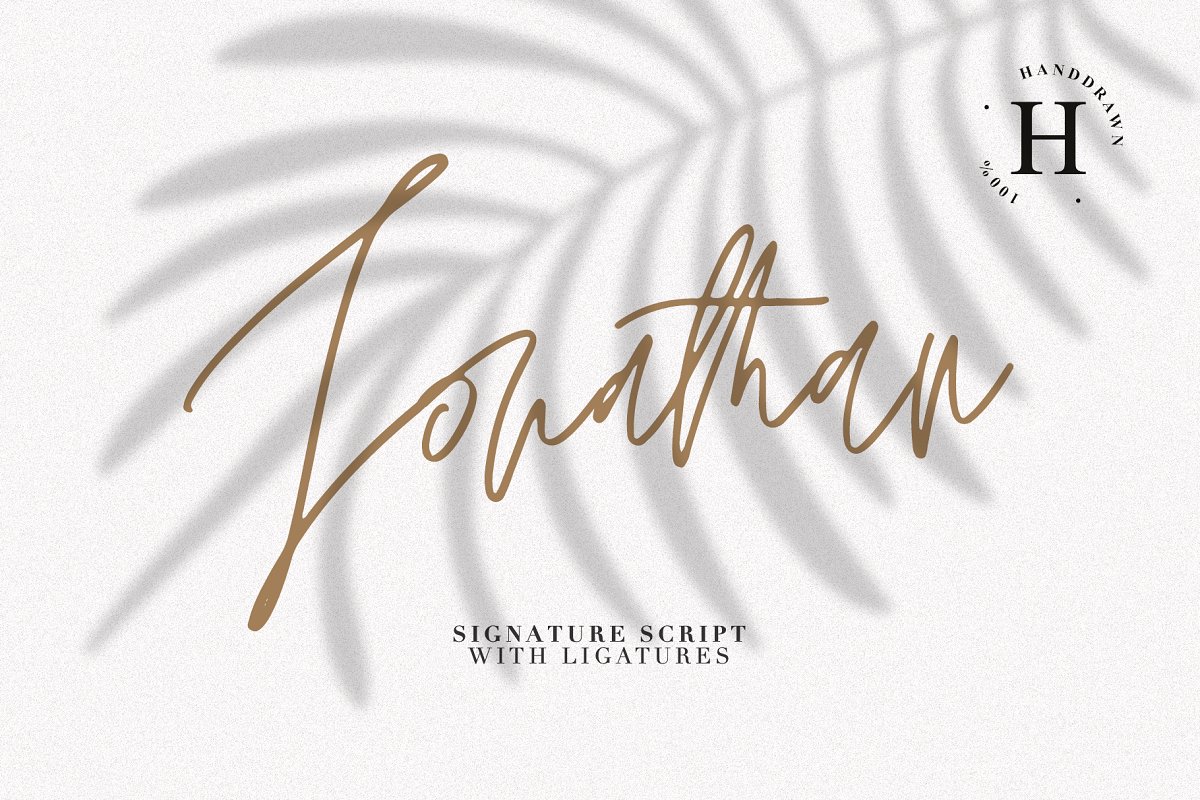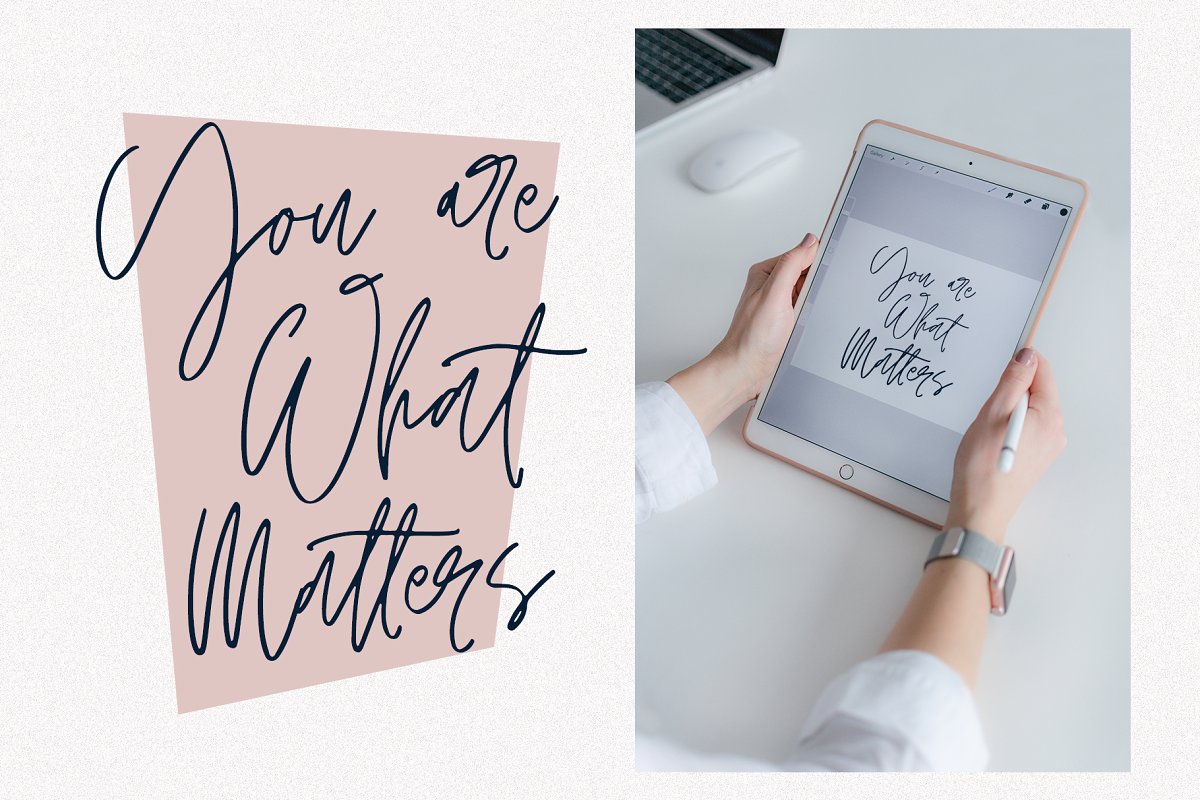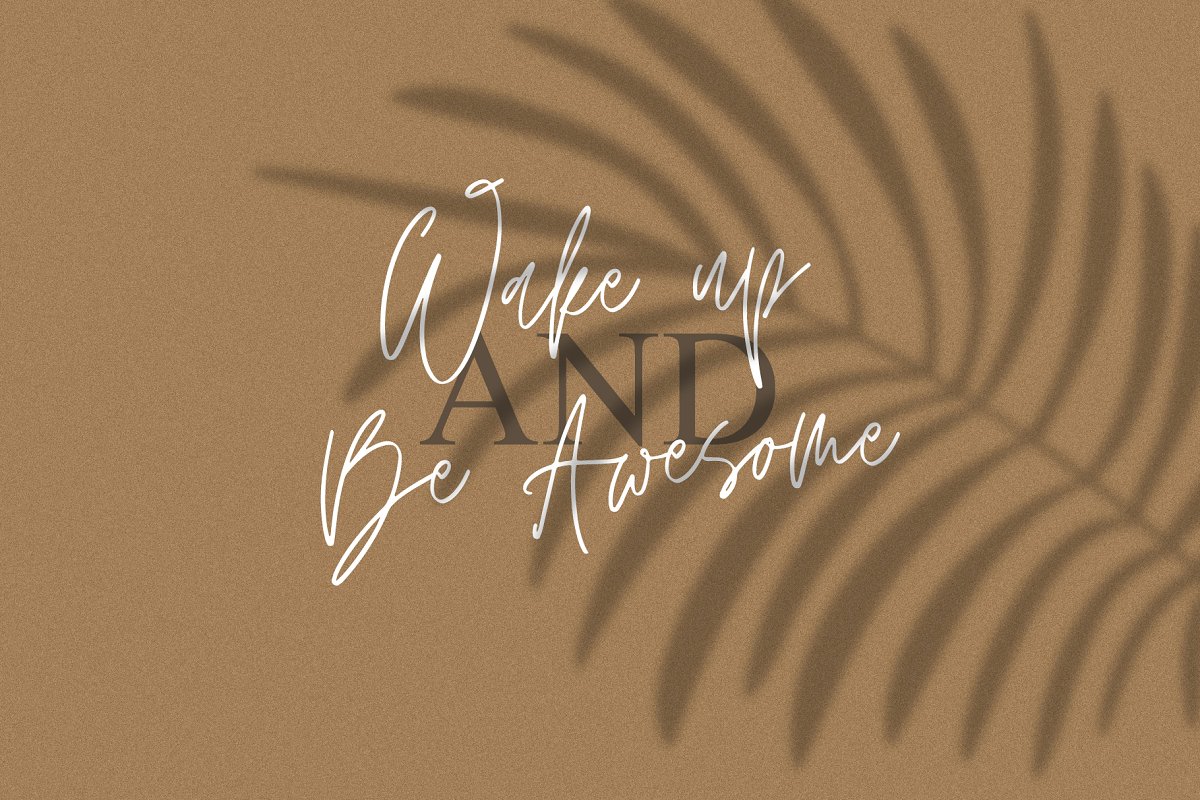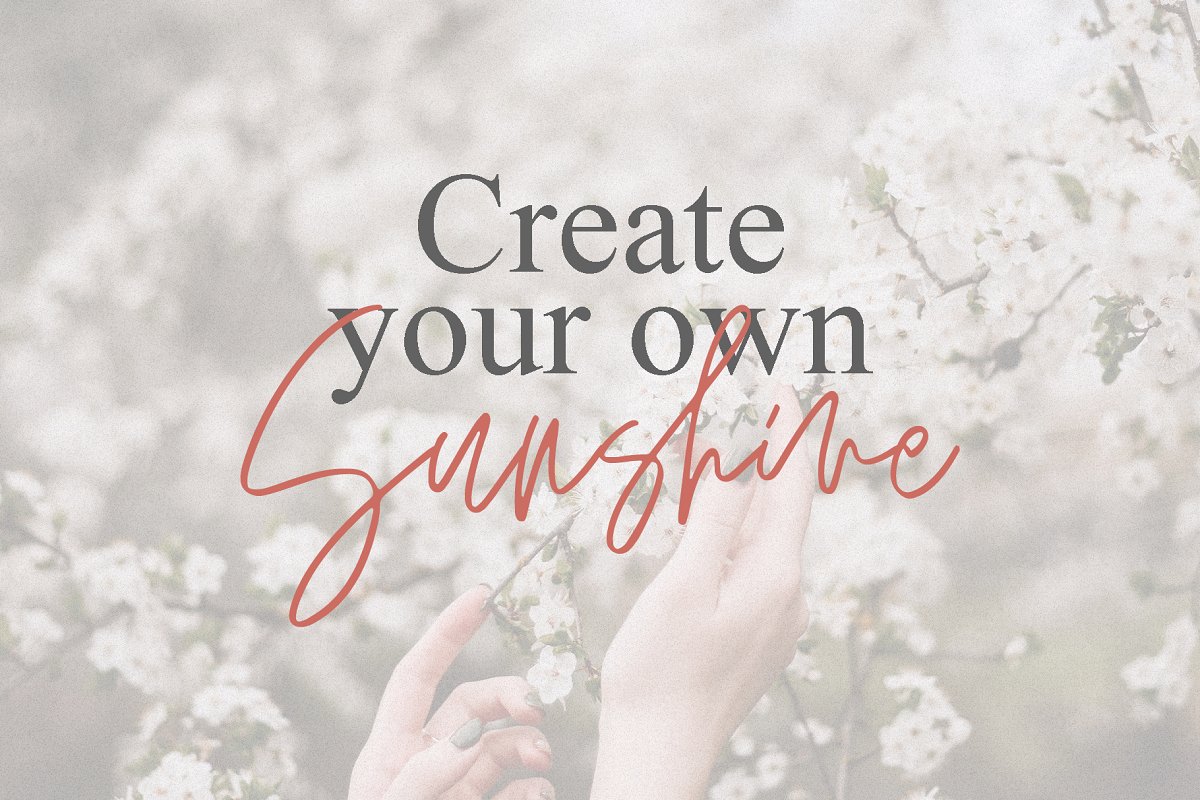
About the JONATHAN Font
Hi everyone, This is my new signature style script, Any inscription will look like a natural stroke, This will give a unique look to your projectsTry my new font, it is lined with all the distances and it looks professional and at ease, It is ideal for signature or design, postcards and greetings, websites or blogsTest it out below to see how it could look for your next project!Includes:Uppercase and lowercaseNumbers and punctuationForeign language supportLigaturesDON’T MISS MY NEW BUNDLE – https://crmrkt